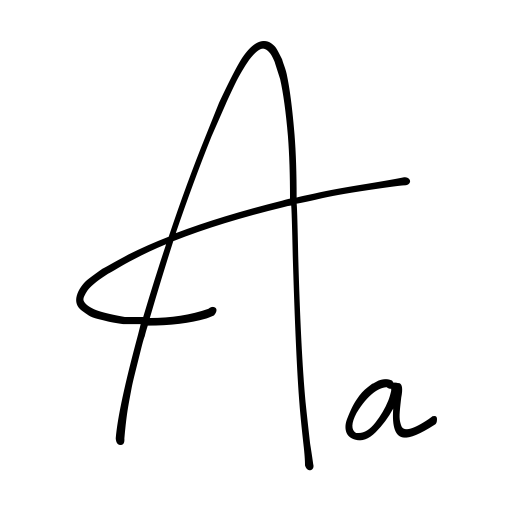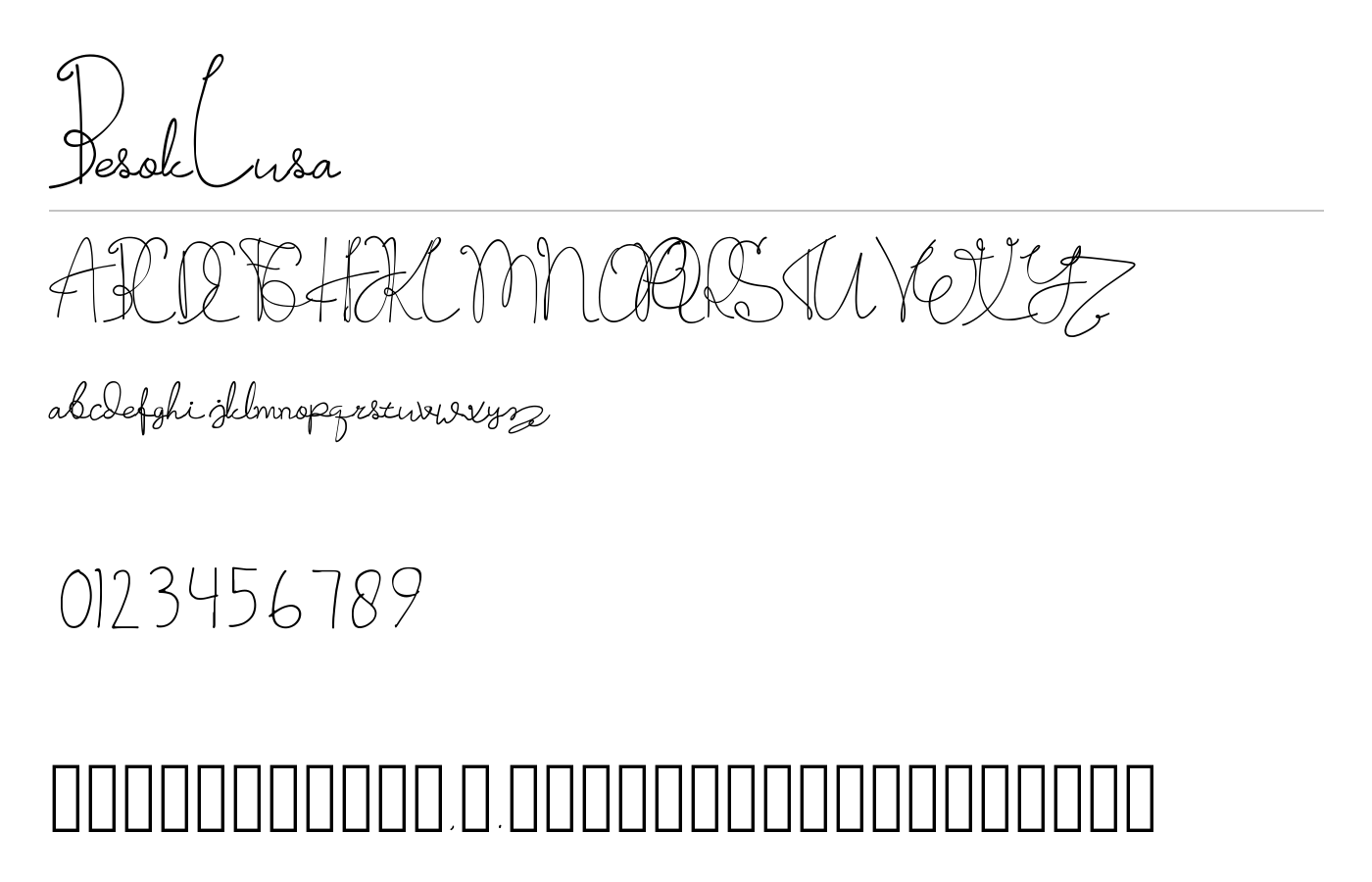
BesokLusa is a delicate, hand-drawn script font featuring thin, wispy strokes and whimsical loops that create an airy, playful feel. Its light weight and intricate lines make it ideal for creative branding, invitations, and artistic projects where a personal, elegant touch is desired. This font works best for decorative headlines and accents rather than body text due to its unique, highly stylized letterforms.
BesokLusa Font